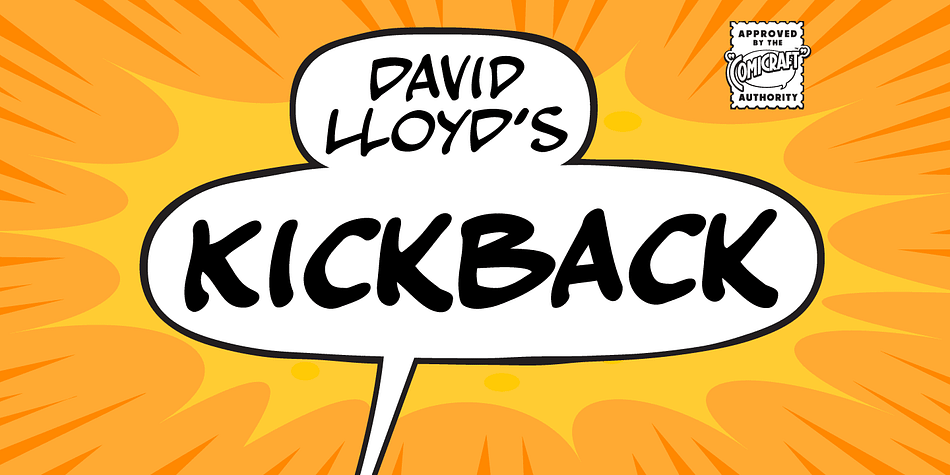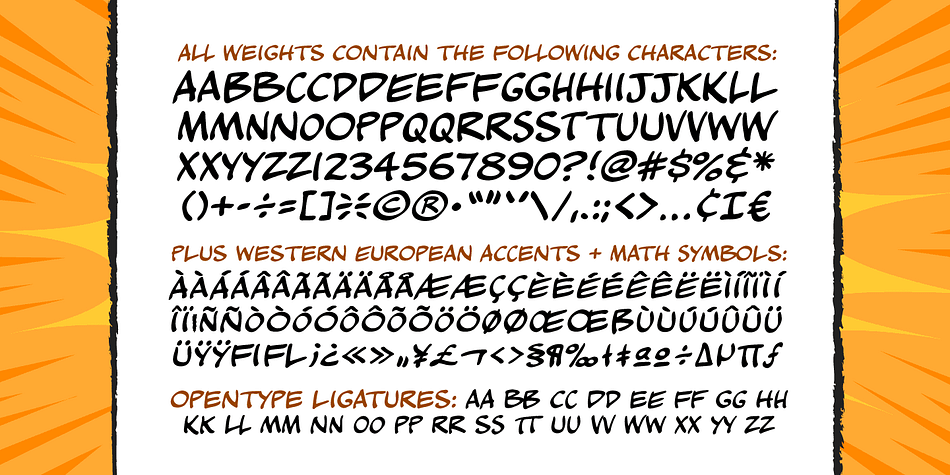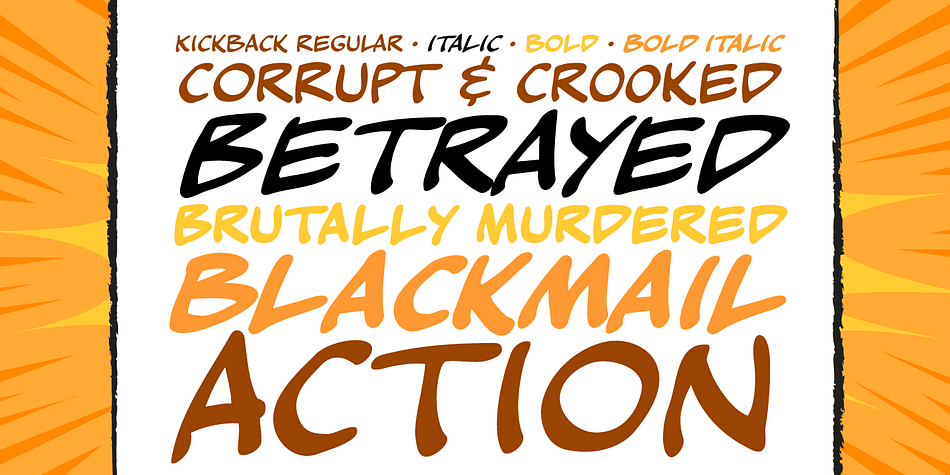
Designed by John Roshell and David Lloyd, Kickback is a comic and hand display font family. This typeface has four styles and was published by Comicraft.
Joe Canelli is a crooked cop working in a corrupt police force. Joe is haunted by nightmares of powerlessness. When his partner is brutally murdered and he’s betrayed by his colleagues, it appears that Joe’s nightmares are coming true. With his back against the wall there’s only one thing he can do—turn against the criminal network that he once embraced… KICKBACK is a fast-paced, action-filled, noir-style, 96 page crime thriller from the co-creator of V FOR VENDETTA, David Lloyd.
KICKBACK is also a font. This one.